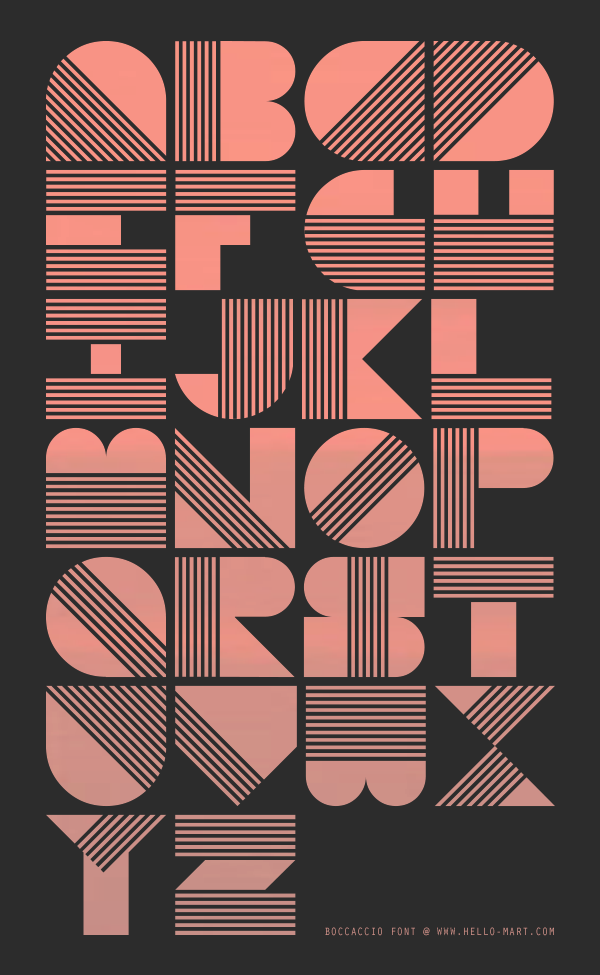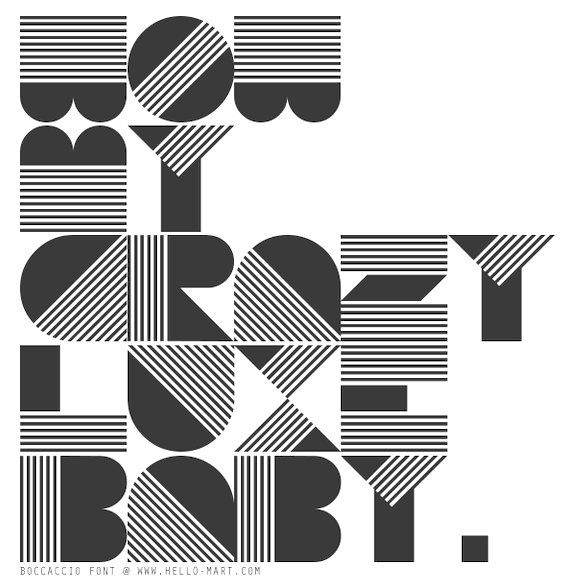
Hello Creative (or Hello Mart, or Hello Media) [Margaret Harding Penney]
Saint Petersburg, FL-based web designer. Creator of the following commercial typefaces: Roccio (2010, fat geometric face), Untoward (2010), Magik (2012, a geometric display face), Roco (2013, a slit font), Faceplant (2013), Boccaccio (2013, art deco, prismatic and multilined, named after the Belgian club Boccaccio Life, where New Beat was first played), Magik, Haext (2013, hand-printed; followed by Haext Pen and Haext Bold in 2015, Ten Dollar Fonts).
In 2014, she created the Arabic simulation typeface Maroque: Maroque is a geometric type design inspired by the forms and pattern motifs found in Moroccan carpets, artwork and architecture. The pattern motifs most specifically associated with this font design are those found in the carpets of the Maghreb or Berber people of North Africa, these rugs have a kind of bold simplicity that appears decorative, detailed and grid-based. Maroque Stencil appeared in 2014.